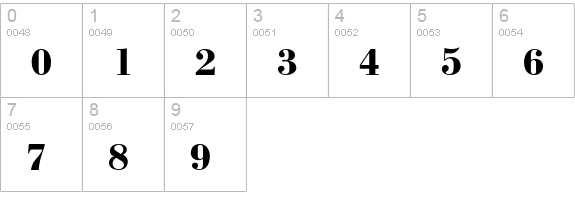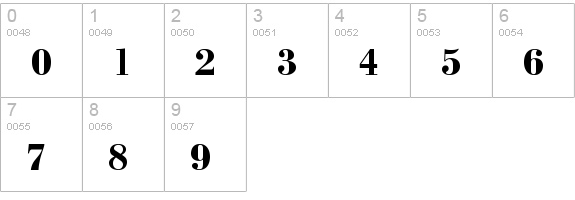
PT Bodoni Bold Cyrillic Font Details
PT Bodoni Bold Cyrillic is a strong, high-contrast variant in the PT typeface family \xE2\x80\x94 well suited to headlines, attention-grabbing titles, and strong calls-to-action.
The PT Bodoni Bold Cyrillic font is a stunning typeface that exudes elegance and sophistication. With its bold strokes and sharp serifs, this font is perfect for making a strong statement in your designs. The Cyrillic characters in this font add a unique touch, making it stand out from other fonts. Best of all, the PT Bodoni Bold Cyrillic font is completely free to download at FontsMarket.com. Whether you're working on a branding project, editorial design, or any other creative endeavor, this font is sure to elevate your work and leave a lasting impression. Don't miss out on the opportunity to enhance your designs with this beautiful and versatile font!